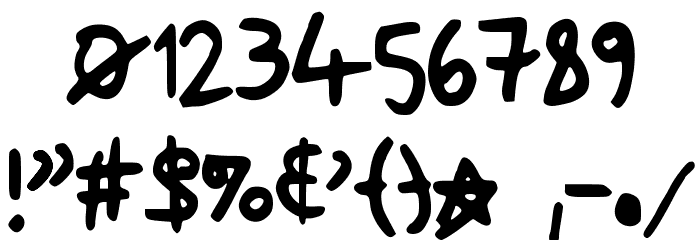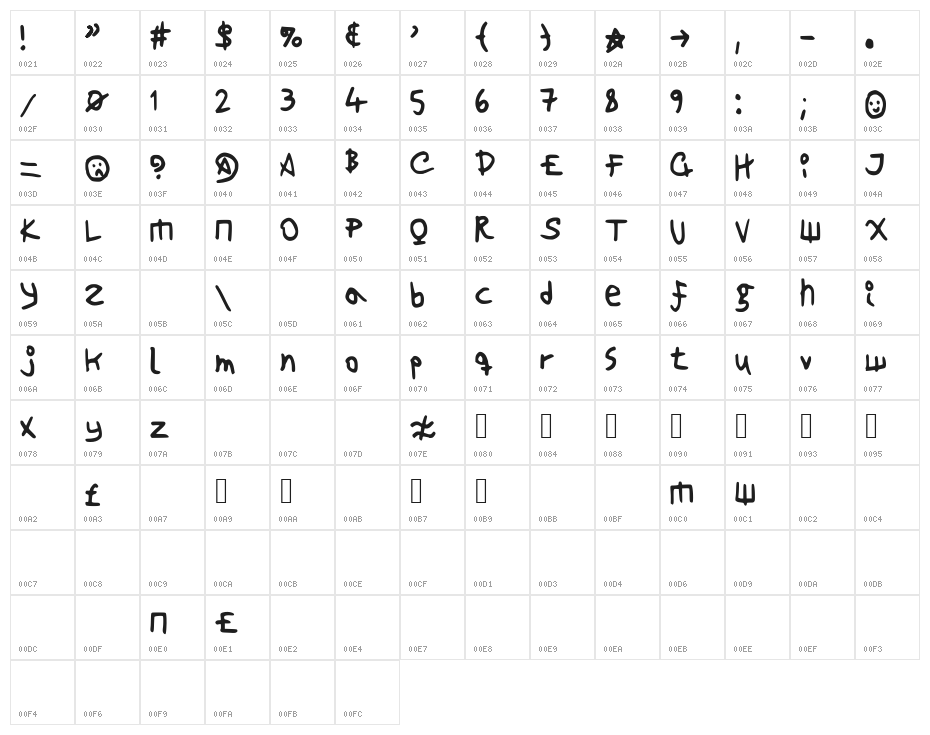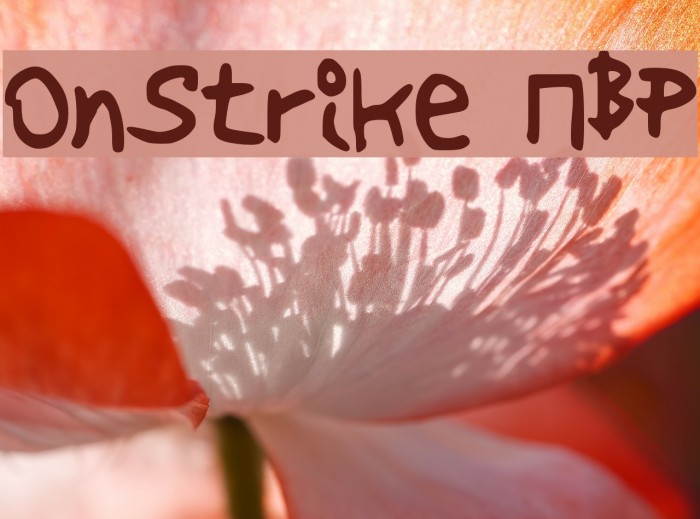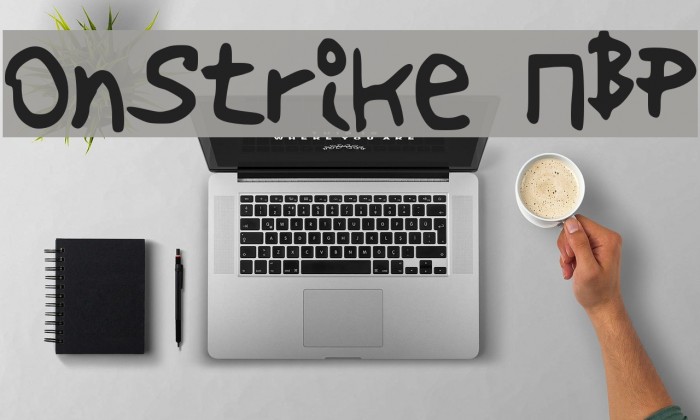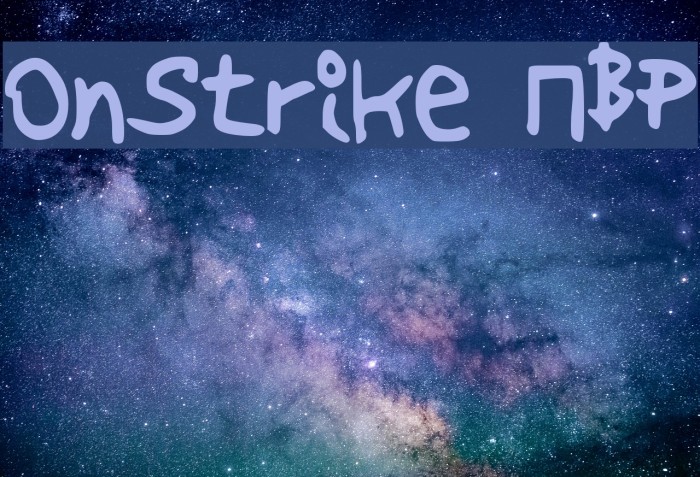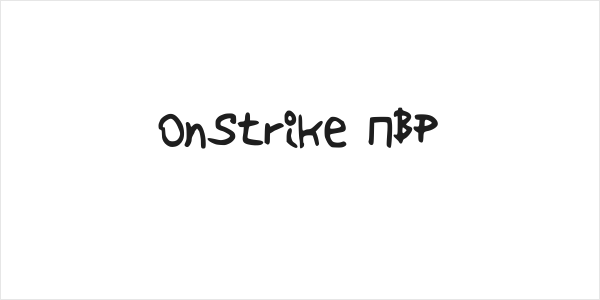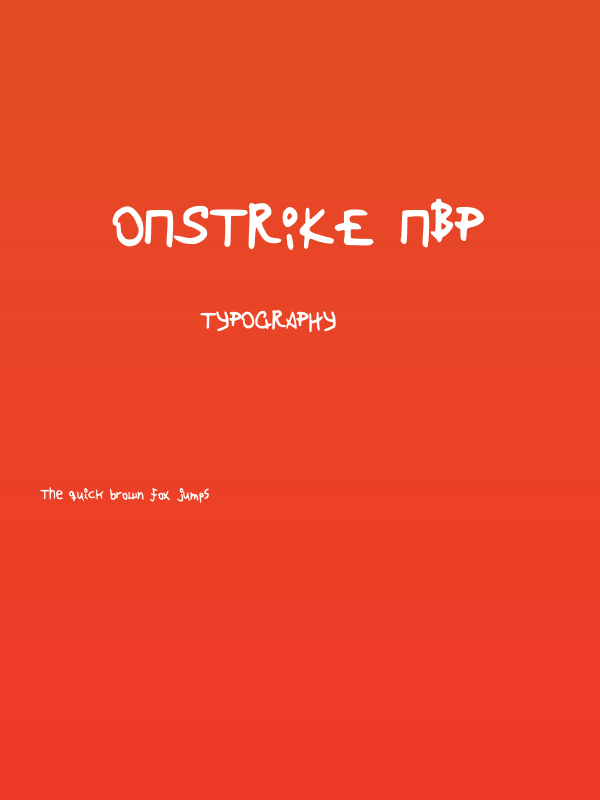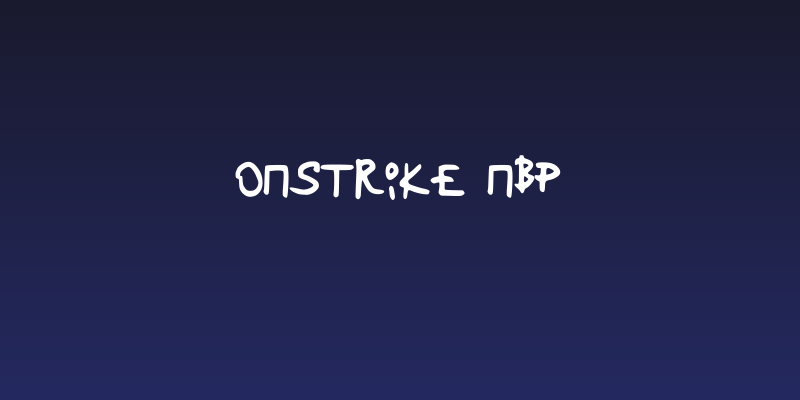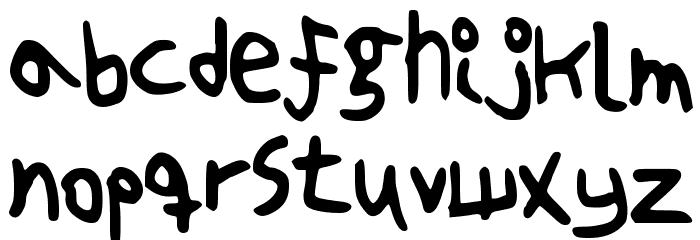
OnStrike NBP Font
OnStrike NBP Description
This font features a playful and bold handwritten style, characterized by its irregular and dynamic strokes. The letters have a casual, almost graffiti-like appearance, with varying thickness that adds a sense of movement and energy. The uppercase and lowercase letters maintain a consistent style, with rounded edges and a slightly tilted orientation, giving it a whimsical and informal look. Numbers and special characters follow the same aesthetic, ensuring a cohesive design throughout. This font is ideal for projects that require a fun and approachable vibe.